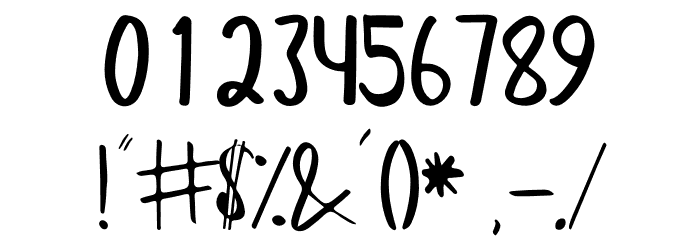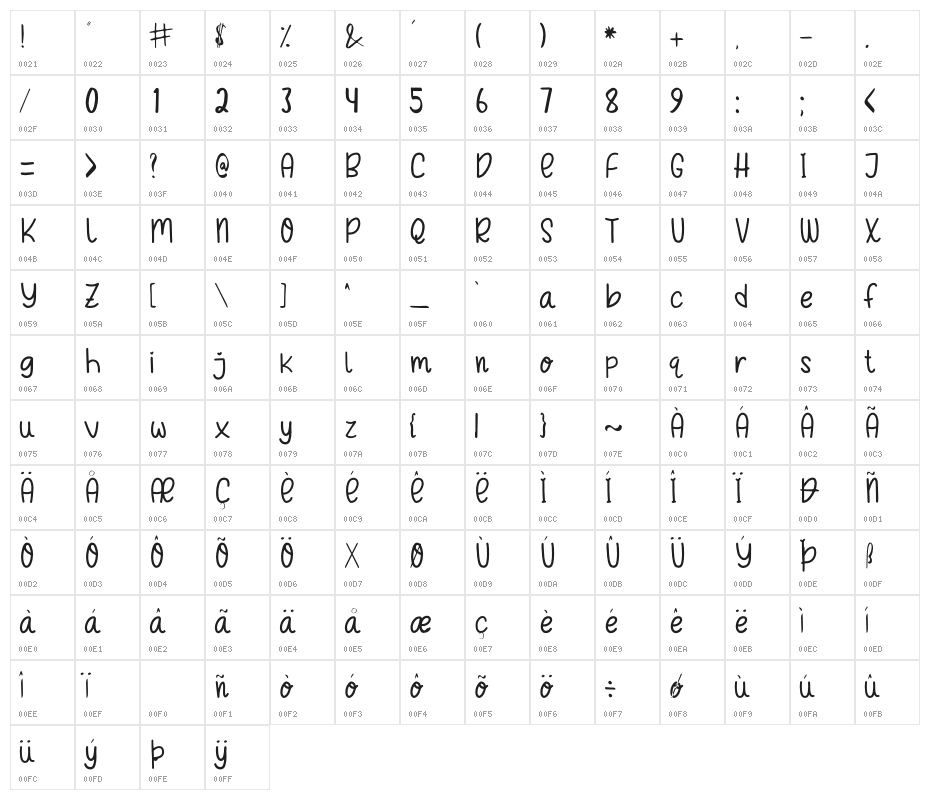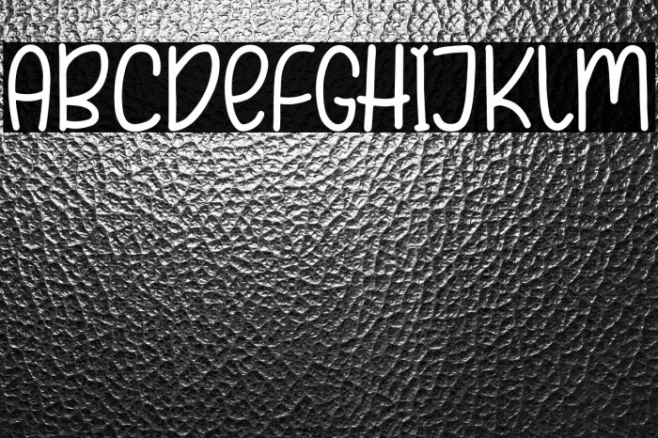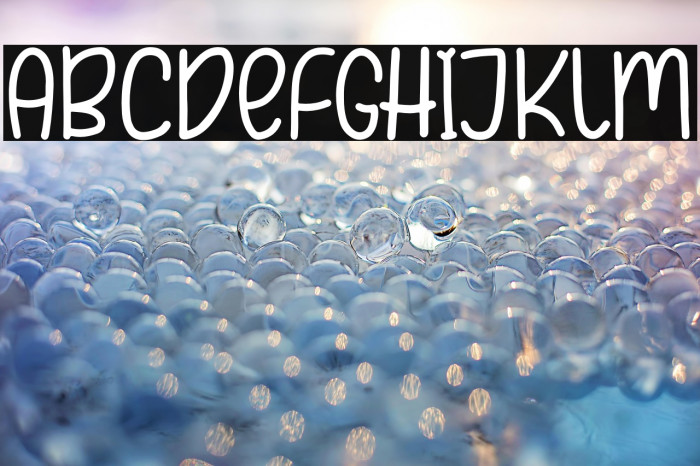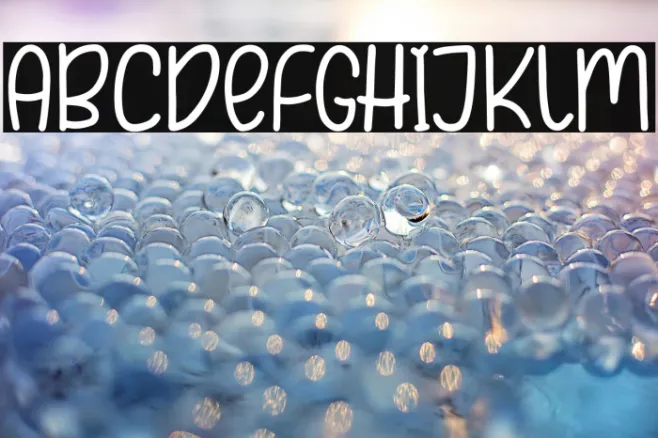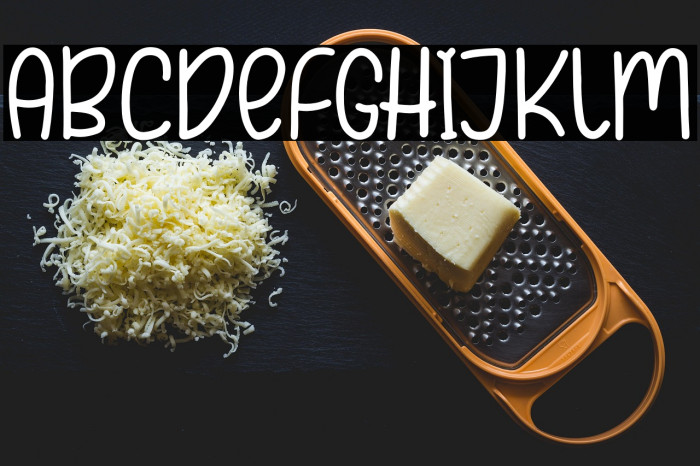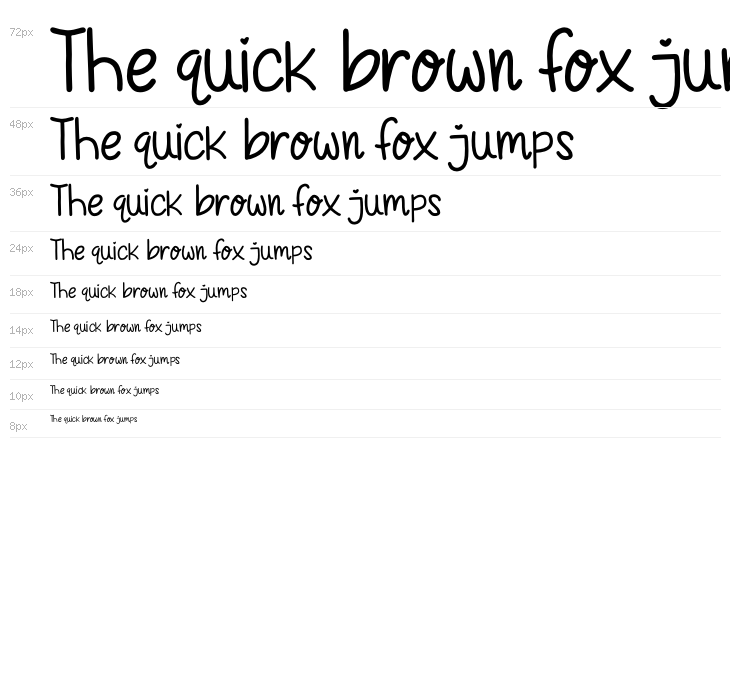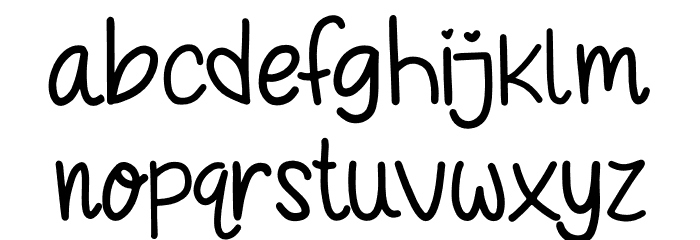
Choco Cakes Font
This playful and whimsical font features a handwritten style with smooth, rounded edges and a casual, friendly appearance. The characters are slightly irregular, adding to the charm and informal feel. The uppercase and lowercase letters maintain a consistent flow, while the numbers and special characters complement the overall design. This font exudes a sense of fun and creativity, making it ideal for projects that require a personal touch. Its legibility and unique style make it suitable for a variety of applications.
Overall StyleCasual, Playful
Use CaseLogos, Invitations, Posters
Proposed ProjectsGreat for children's books, greeting cards, playful branding, and creative projects.